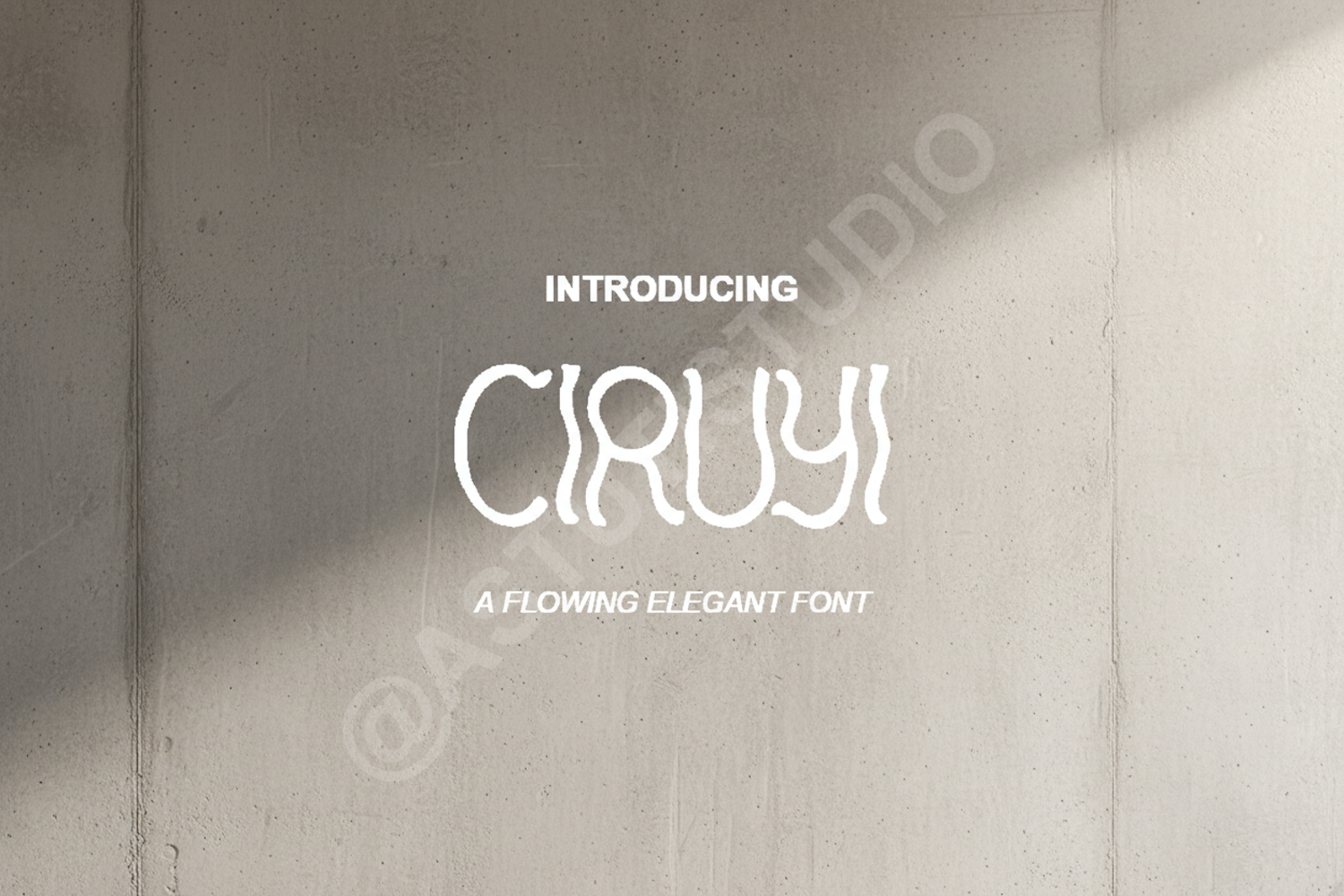
Ciruyi - Chic Modern Serif Typeface
Ciruyi
Ciruyi is a premium serif typeface designed for those who seek elegance and sophistication in their creative work. With its clean lines and unique character shapes, this font strikes the perfect balance between timeless tradition and modern aesthetics. Whether you are working on a high-end fashion brand or a minimalist lifestyle project, Ciruyi provides the versatility and professional touch your designs deserve.
- Branding and Logo Design: Create memorable identities for luxury and boutique brands.
- Wedding Stationery: Add a touch of class to invitations, menus, and RSVP cards.
- Editorial Layouts: Perfect for sophisticated magazine headers and stylish body text.
- Social Media Graphics: Elevate your Instagram quotes, stories, and Pinterest pins.
- Product Packaging: Ideal for beauty, wellness, and high-end lifestyle products.